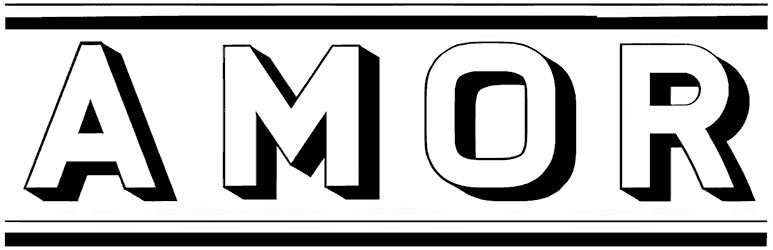
Amor Font
If you are looking for a neat, well-designed font, the Amor may be a good choice; however, it does not support lowercase letters, numbers, and symbols. This decorative font has a unique design and can be helpful for vari…
If you are looking for a neat, well-designed font, the Amor may be a good choice; however, it does not support lowercase letters, numbers, and symbols.
This decorative font has a unique design and can be helpful for various cases such as logos, social media posts, advertisements, and packaging. This newspaper font comes in an open box, which is a turning point for inserting headings that require more attention.
Amor Font